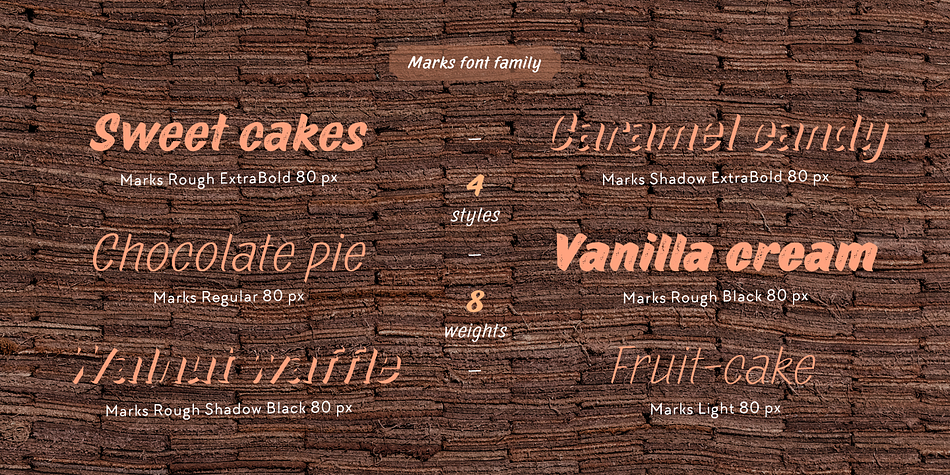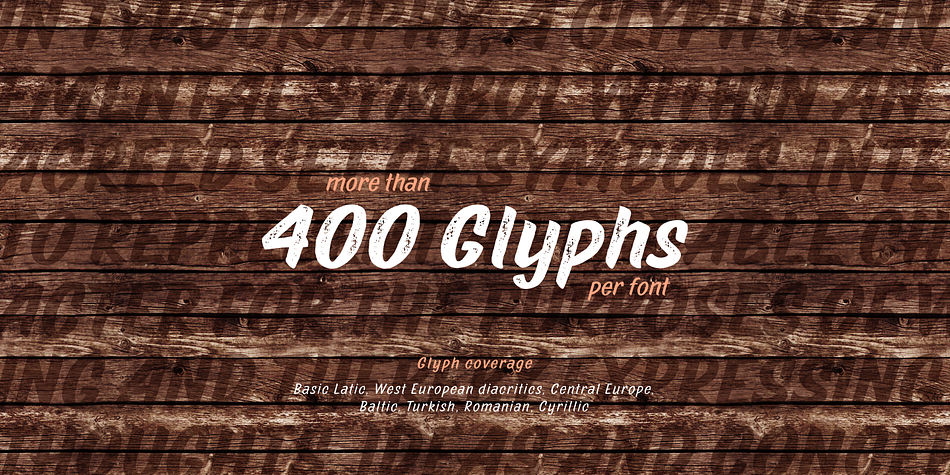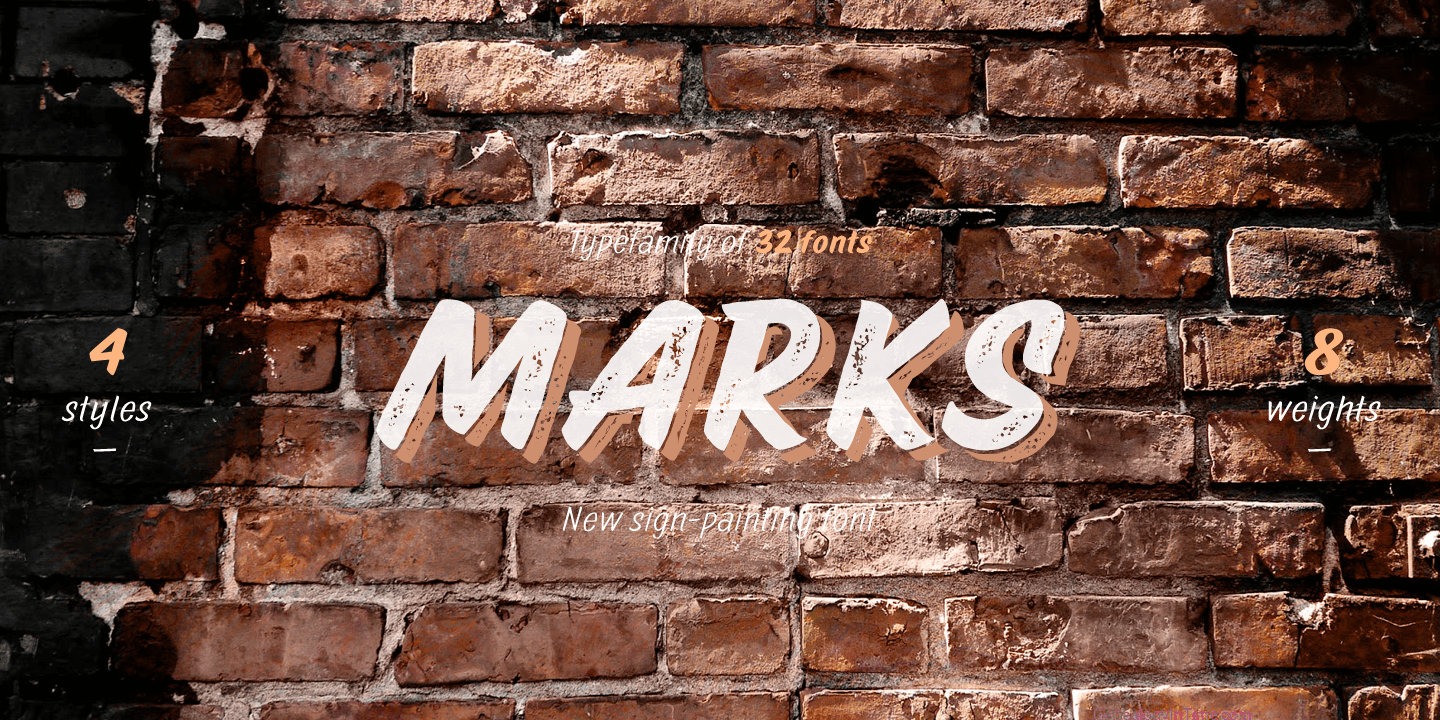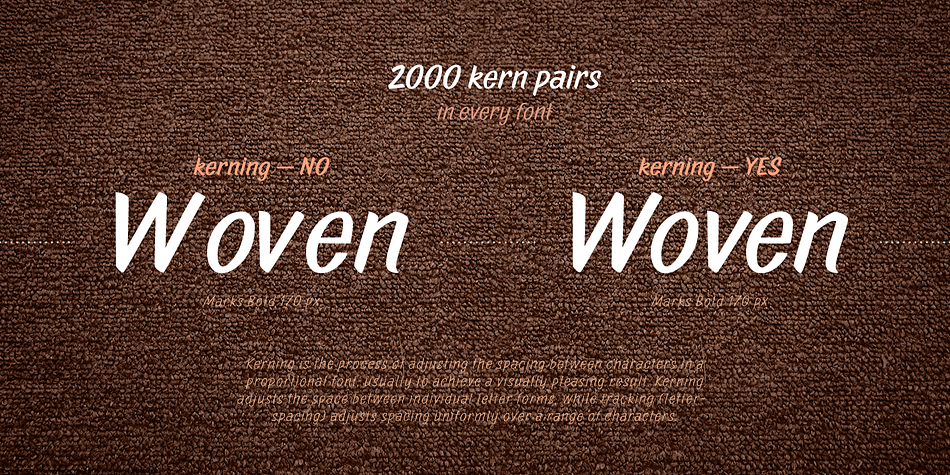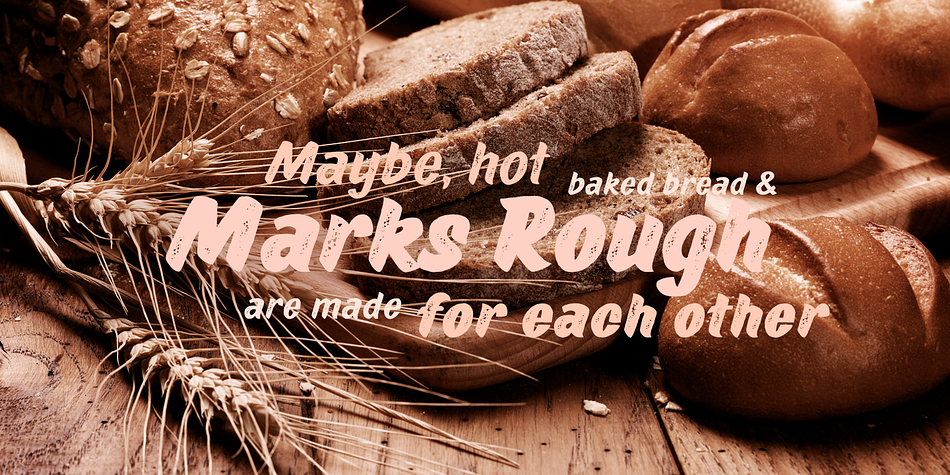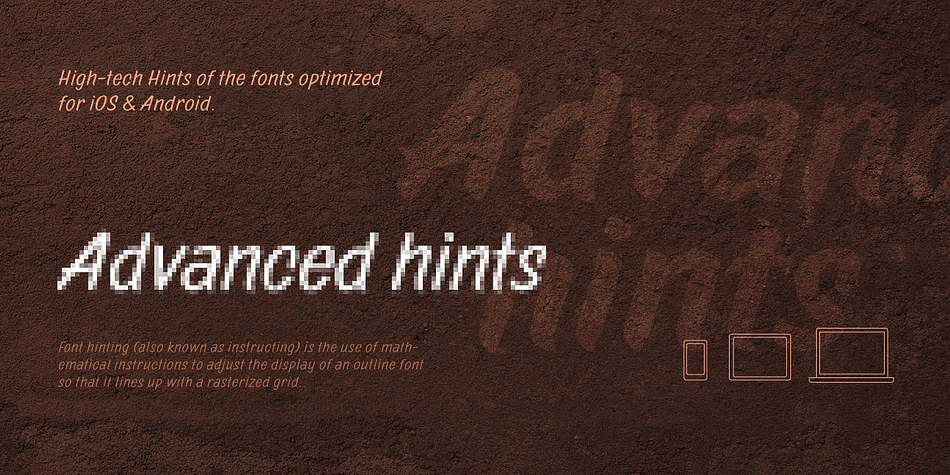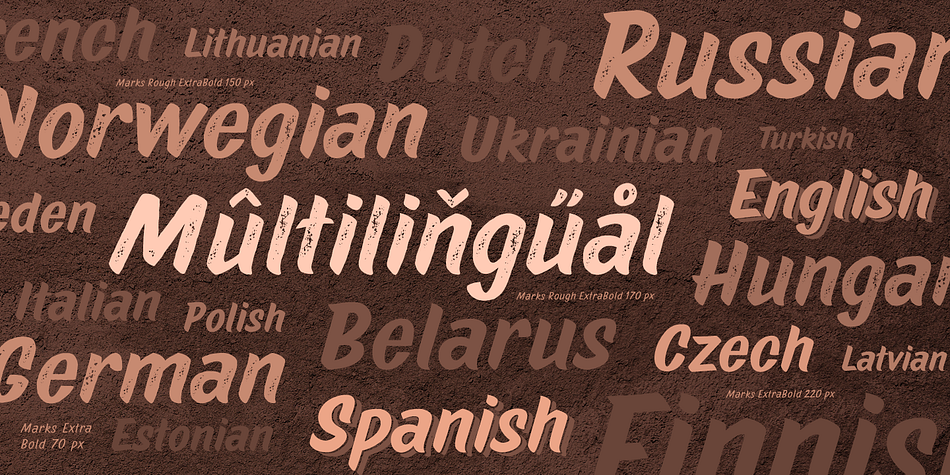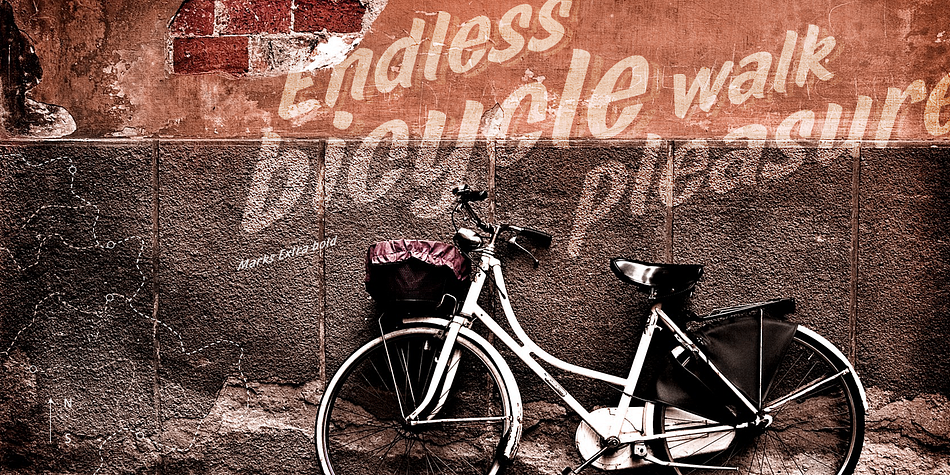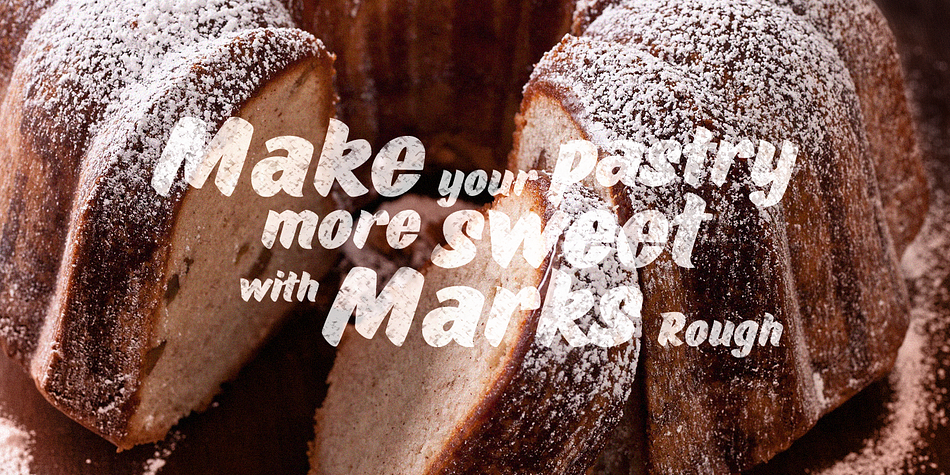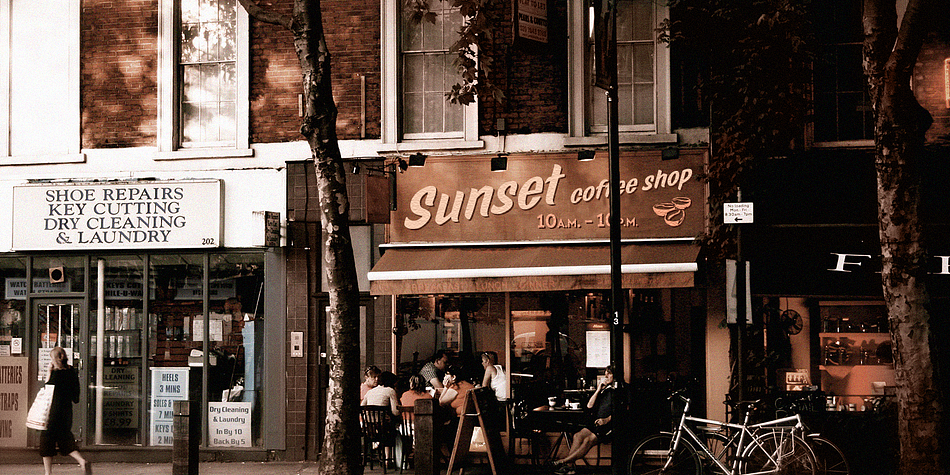
Designed by Ivan Gladkikh, Pinatas Marks is a multiple classification font family. This typeface has thirty-two styles and was published by Piñata.
Original Foundry: TypeType
Original name: TT Marks
The typeface Pinatas Marks is made in the style of the traditional American sign painting, which is the traditional art of painting on buildings, billboards and signage for the purpose of announcing or advertising of products, services, and activities.
Font family Pinatas Marks consists of 32 fonts and has 8 different weights: Thin, ExtraLight, Light, Regular, Medium, Bold, ExtraBold, Black.
Pinatas Marks is looking great on all the modern information media, ranging from small labels to entire text blocks.